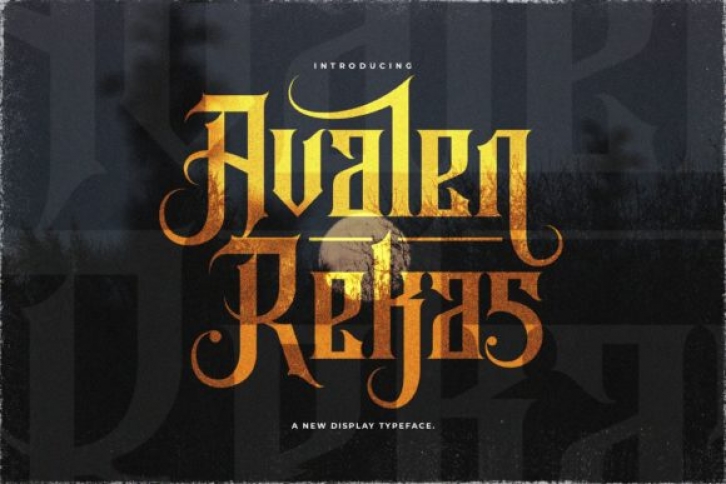
Avalen Rekas is a spectacular blackletter font. Incredibly versatile, this font fits a wide pool of designs, elevating them to the highest levels. Add this font to your favorite creative ideas and notice how it makes them come alive!